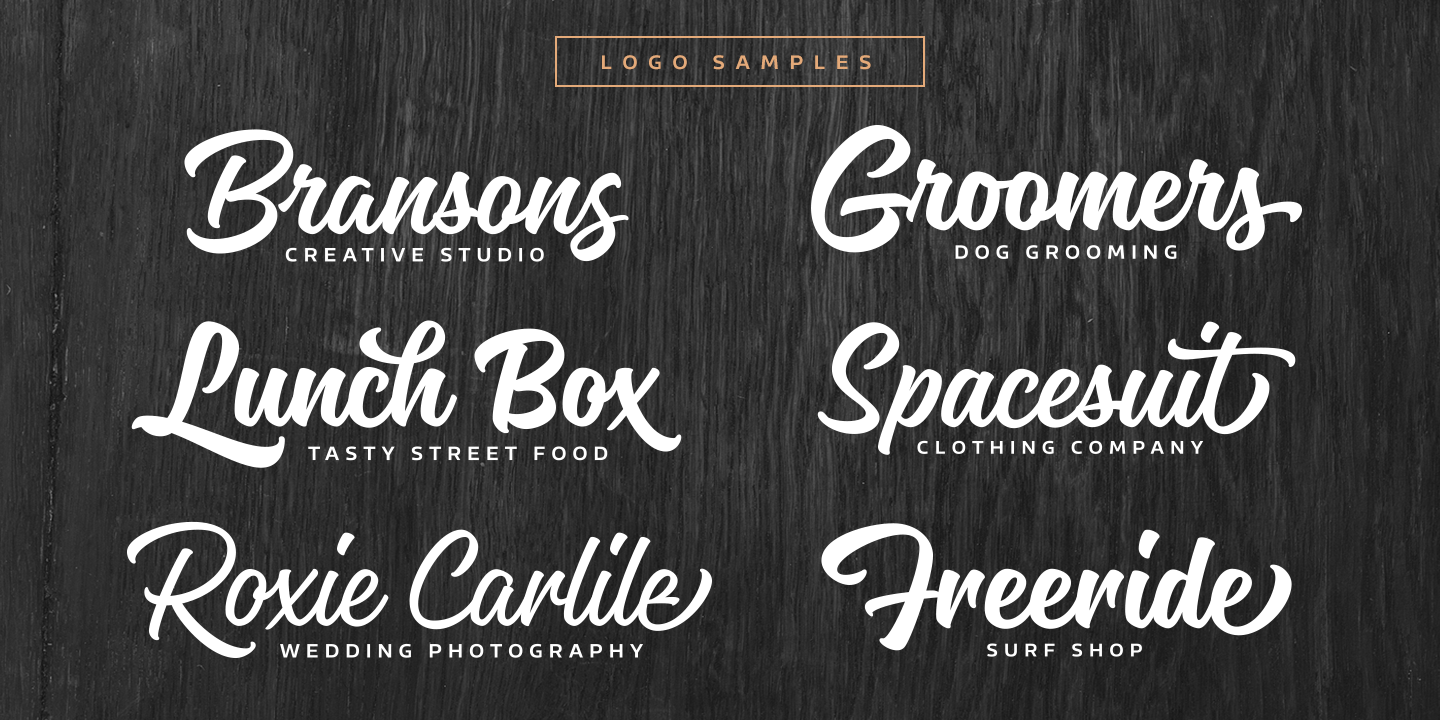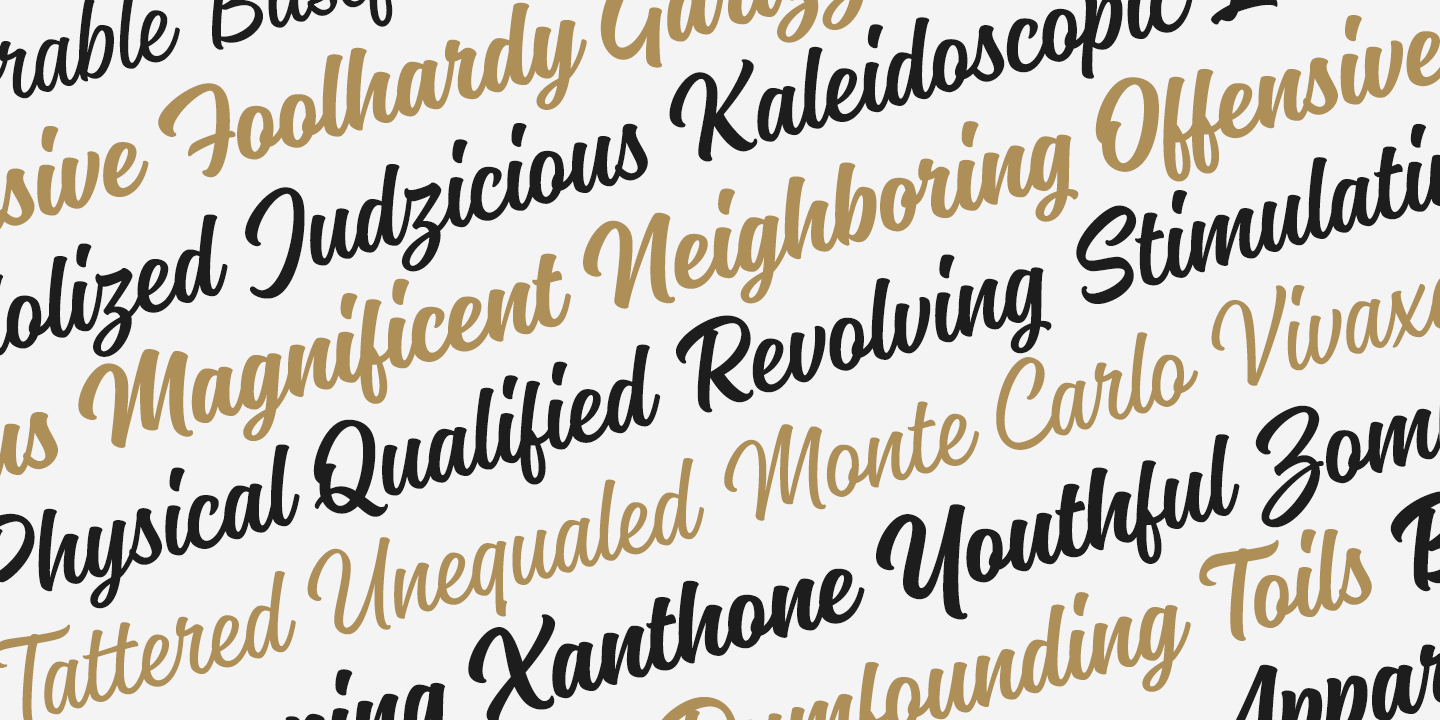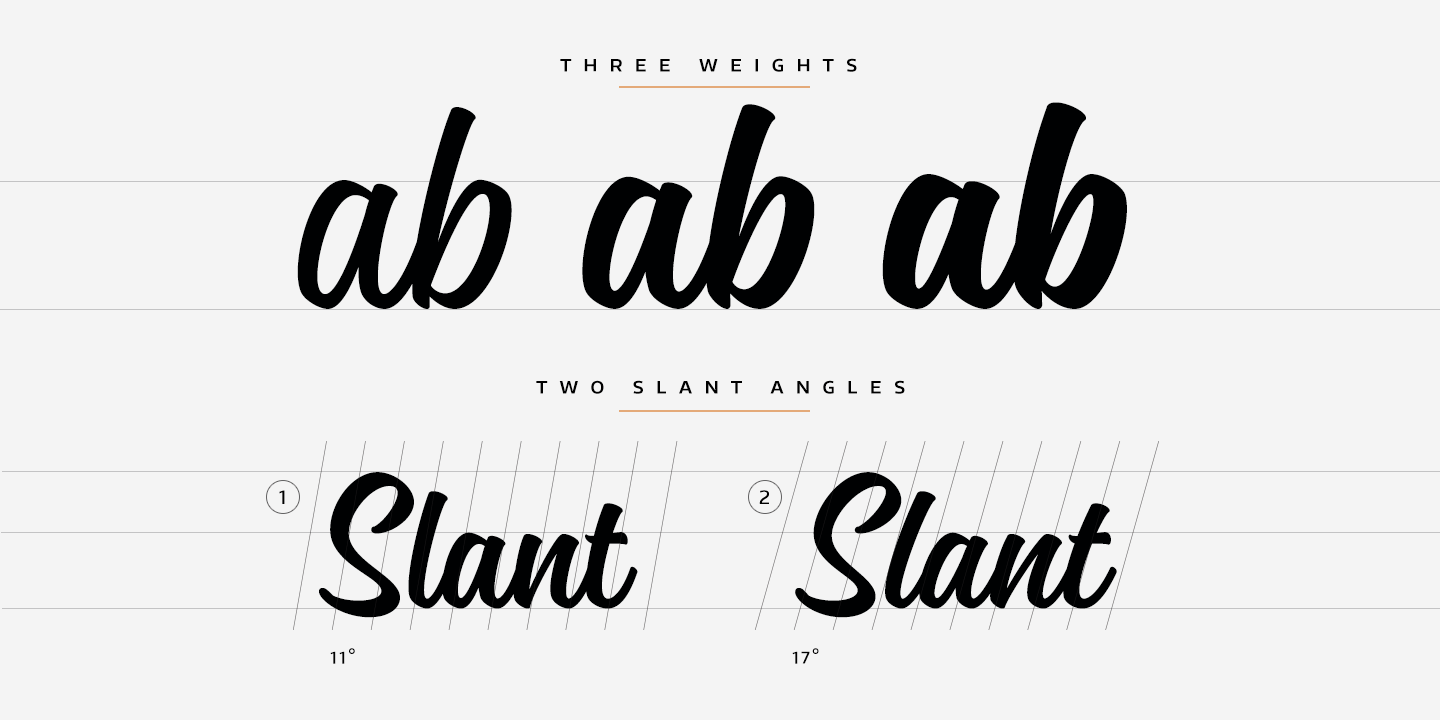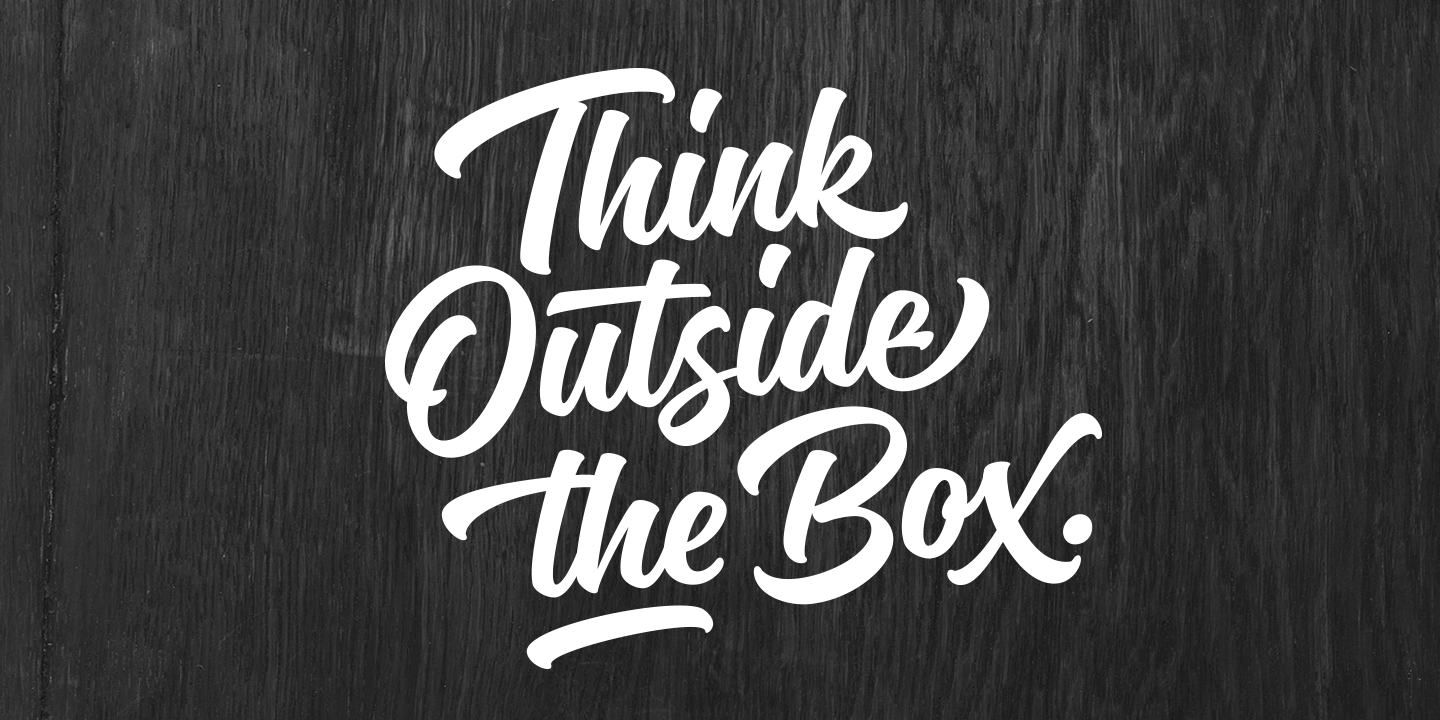
Magneton is a brush script typeface that contains three weights and two slant angles. Three weights simulates the pressure of the brush pen; light is written with a gentle pressure and the bold one with more pressure. Two slant angles gives Magneton two…